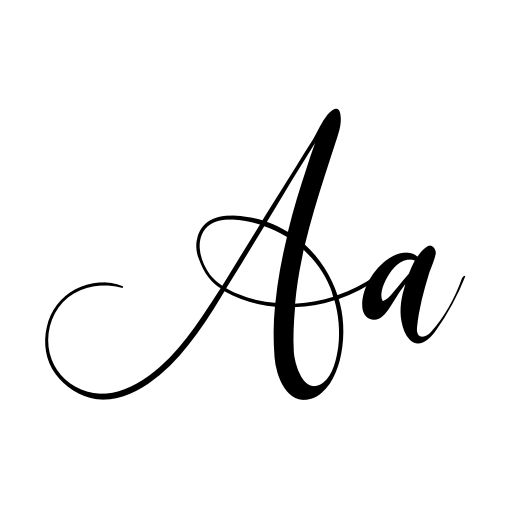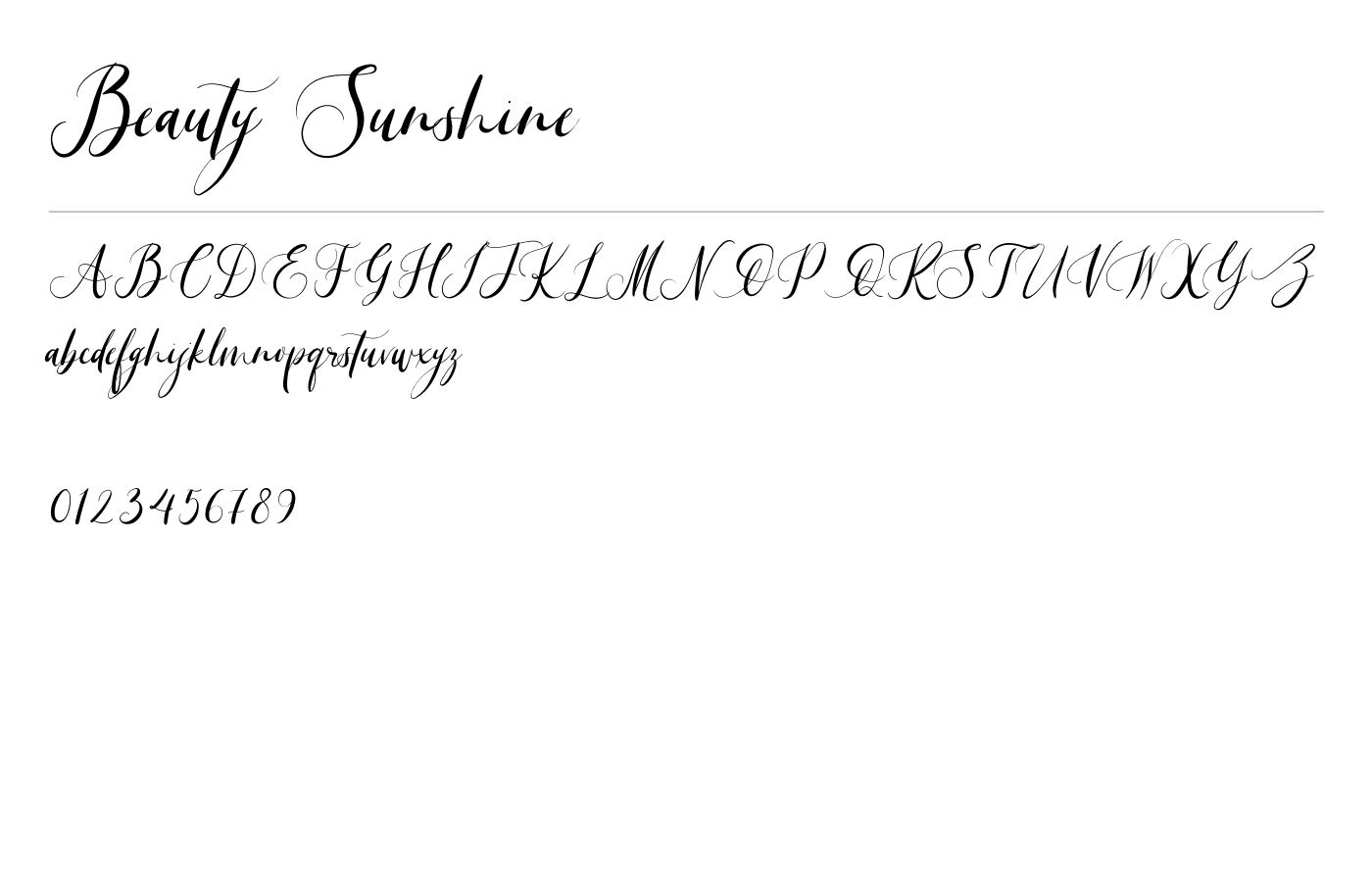
Beauty Sunshine is an elegant script font with delicate, flowing strokes and graceful swashes, giving it a sophisticated and feminine feel. Its fine contrast and smooth, handwritten style make it perfect for luxury branding, wedding invitations, and beauty or fashion projects where a touch of refinement and charm is desired. This font works best in headlines or short phrases, adding a romantic and stylish flair to any design.
Beauty Sunshine Font
About Beauty Sunshine Font